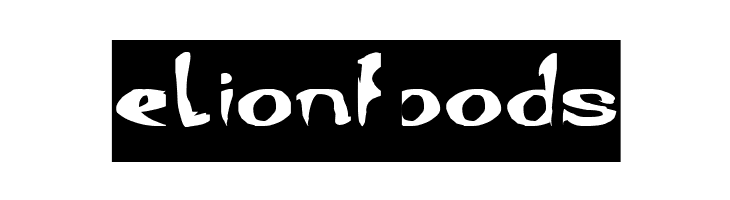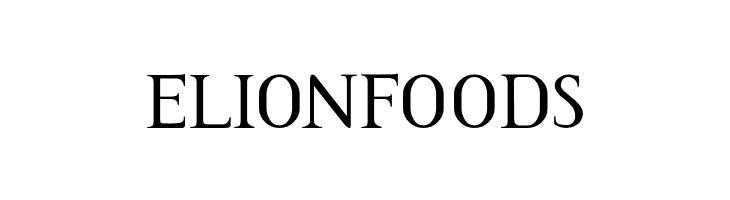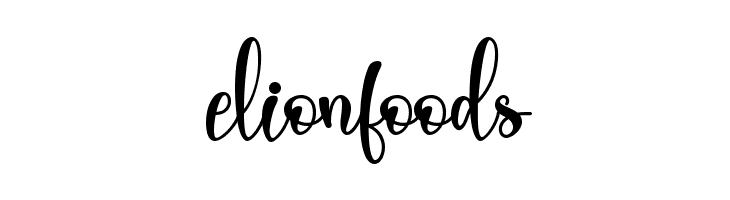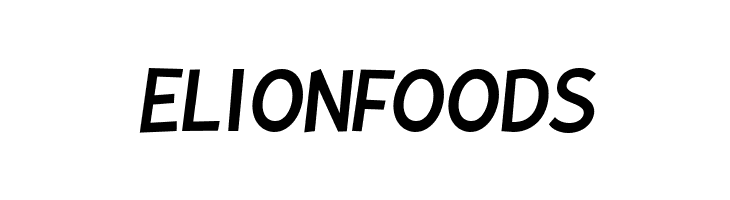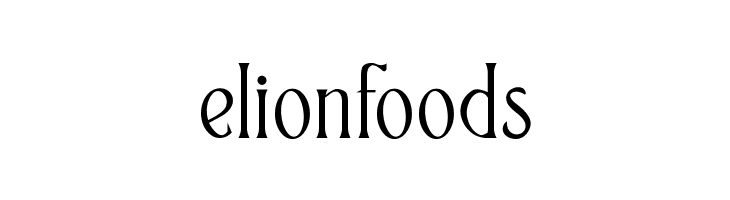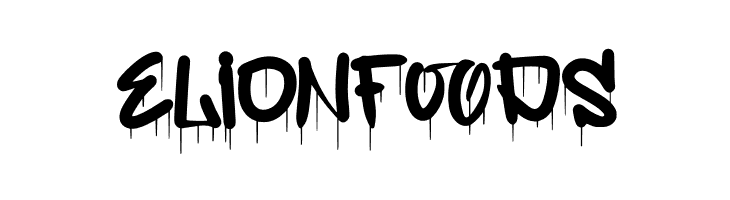
A bold, jagged font with high contrast and dynamic, angular forms.
A classic serif font with sharp serifs and balanced proportions.
A playful, handwritten script font with elegant curves and a cohesive flow.
A modern, italicized font with bold, well-defined characters.
A classic serif font with elegant, elongated letterforms and refined strokes.
A bold graffiti-style font with a dripping paint effect, ideal for urban-themed designs.